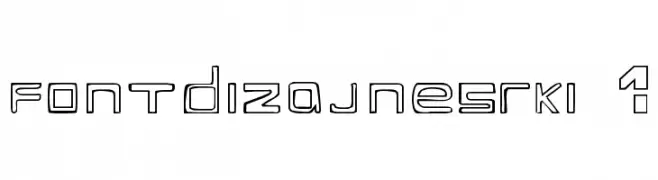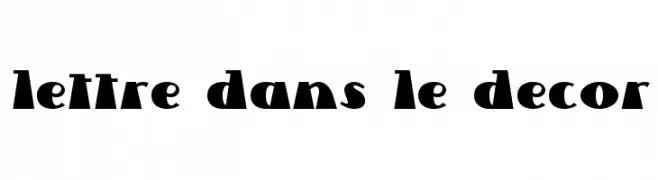
( Fonts by Aryel Filipe )
A bold, playful font with a cartoonish and informal style.
( Fonts by Toto )
A bold, geometric font with sharp angles and a modern style.
( Fonts by Fizzetica DepokAsiana TypeFoundry - fizzeticatypefoundry.tumblr.com )
A decorative font with leaf and vine embellishments, offering a whimsical, organic style.
( Fonts by Fizzetica DepokAsiana TypeFoundry - fizzeticatypefoundry.tumblr.com )
A bold, angular graffiti-style font with sharp, jagged edges.
A playful, handwritten font with a casual and whimsical style.